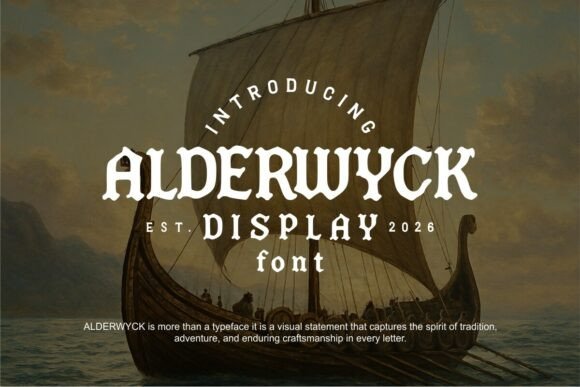
The Timeless Elegance of Alderwyck Font: A Designer’s Delight
I’ll never forget the design project that led me to discover the Alderwyck font. I was working on a branding campaign for a craft brewery, and I needed a font that would evoke a sense of history, bravery, and refined elegance. After hours of searching, I stumbled upon Alderwyck, and it was love at first sight. The bold contrasts, expressive serif details, and distinctive curves instantly captured the essence of what I was looking for.
As a designer, I’m always on the lookout for fonts that can elevate my projects. Here’s what I love about Alderwyck:
- ✨ Timeless character: Alderwyck has a classic, authoritative presence that never goes out of style.
- ✅ Versatility: It’s perfect for a wide range of applications, from premium branding to editorial design.
- 💥 Expressive details: The font’s serif details and curves add a touch of personality to any design.
Of course, no font is perfect. Here are a few quirks to keep in mind:
- 🤔 Limited use in body text: While Alderwyck is stunning in headlines, it may not be the best choice for lengthy body text.
- ⚠️ Requires attention to kerning: As with any serif font, kerning can be a bit tricky. Make sure to adjust the spacing to get the best results.
The Story Behind Alderwyck
Alderwyck was designed with a deep appreciation for medieval European lettering, the age of exploration, and traditional print heritage. The font’s creator aimed to craft a typeface that would evoke a sense of history, bravery, and refined elegance. The result is a timeless, versatile font that’s perfect for designers seeking a classic, masculine aesthetic.
| Font Name | Alderwyck Font |
| Author | Eko Kurniawan |
| What inspired the design of Alderwyck? | The font was inspired by medieval European lettering, the age of exploration, and traditional print heritage. |
| Is Alderwyck suitable for body text? | While Alderwyck is stunning in headlines, it may not be the best choice for lengthy body text. Consider using a serif font with a more traditional design. |
| Does Alderwyck support OpenType features? | Yes, Alderwyck supports OpenType features, including stylistic alternates, glyphs, and ligatures. |